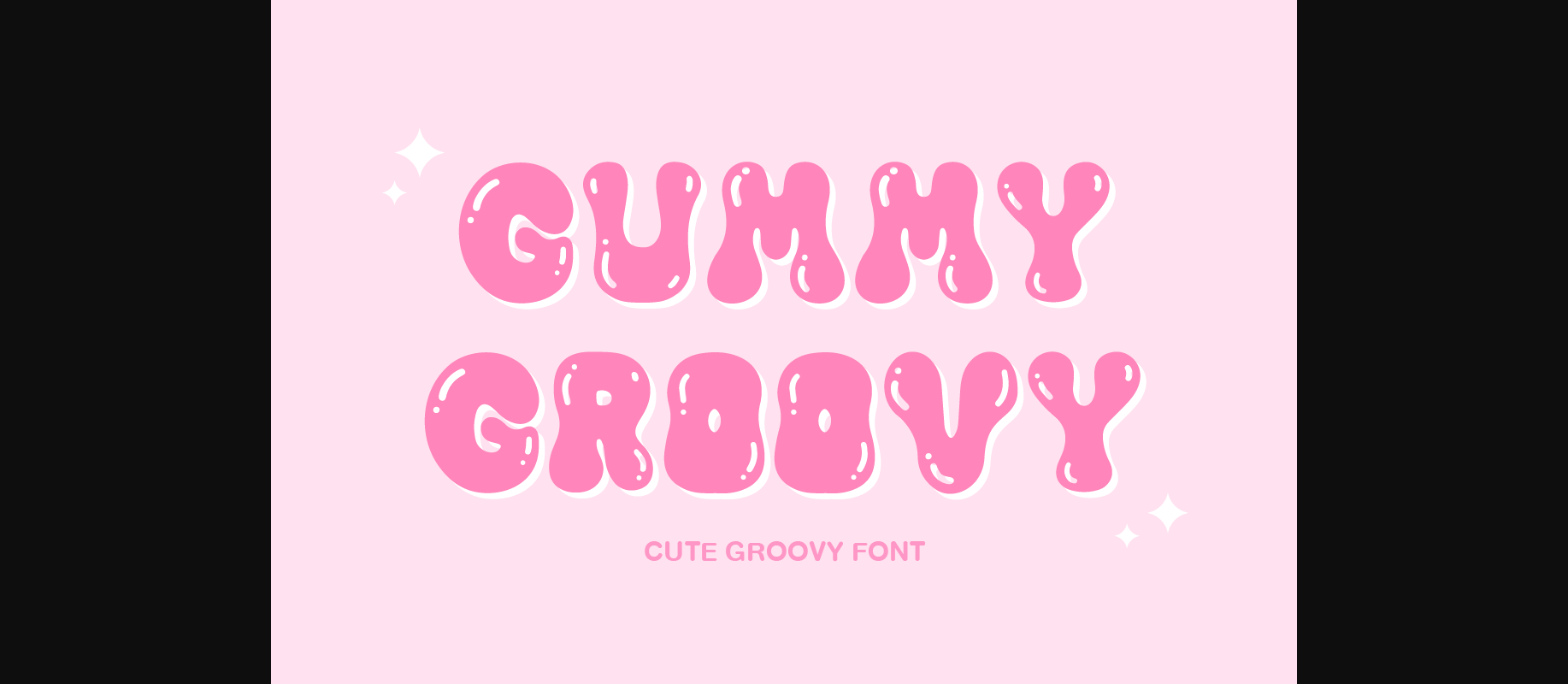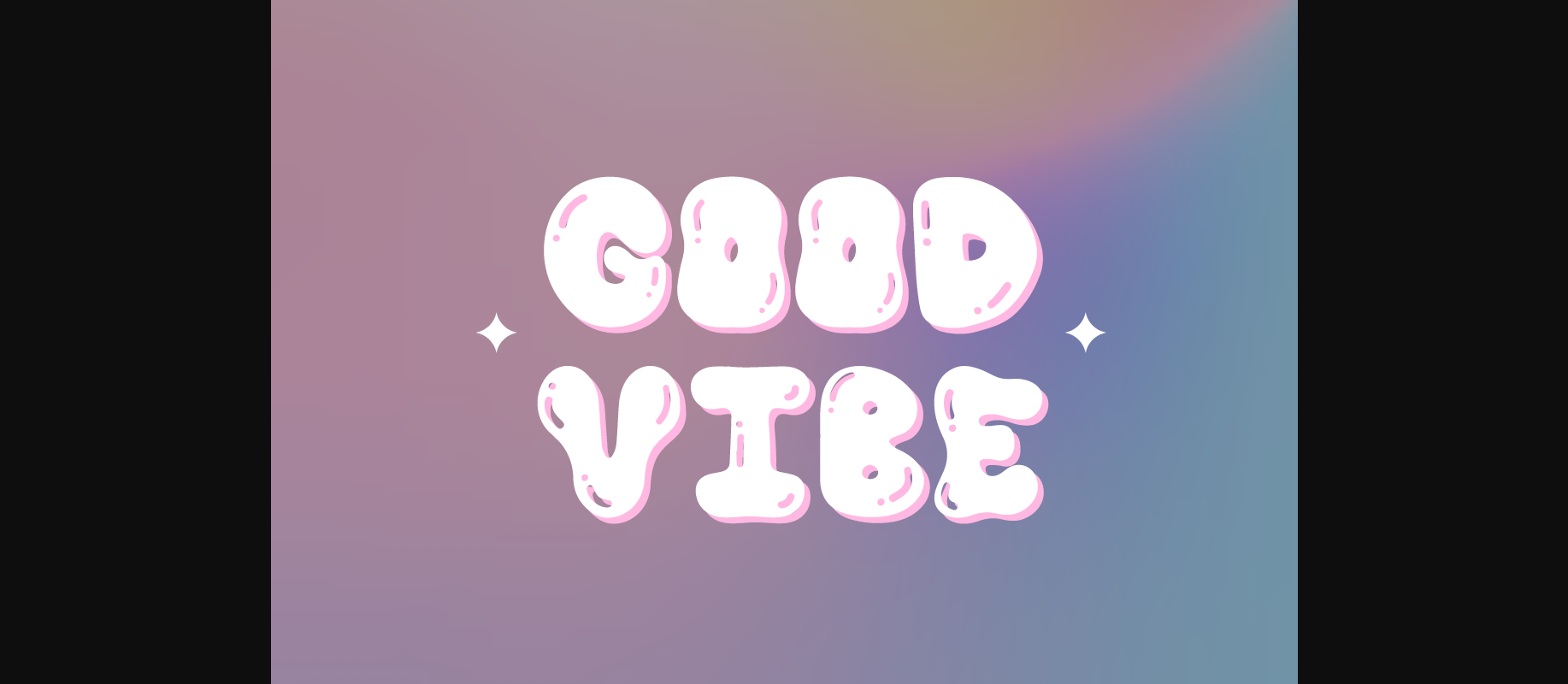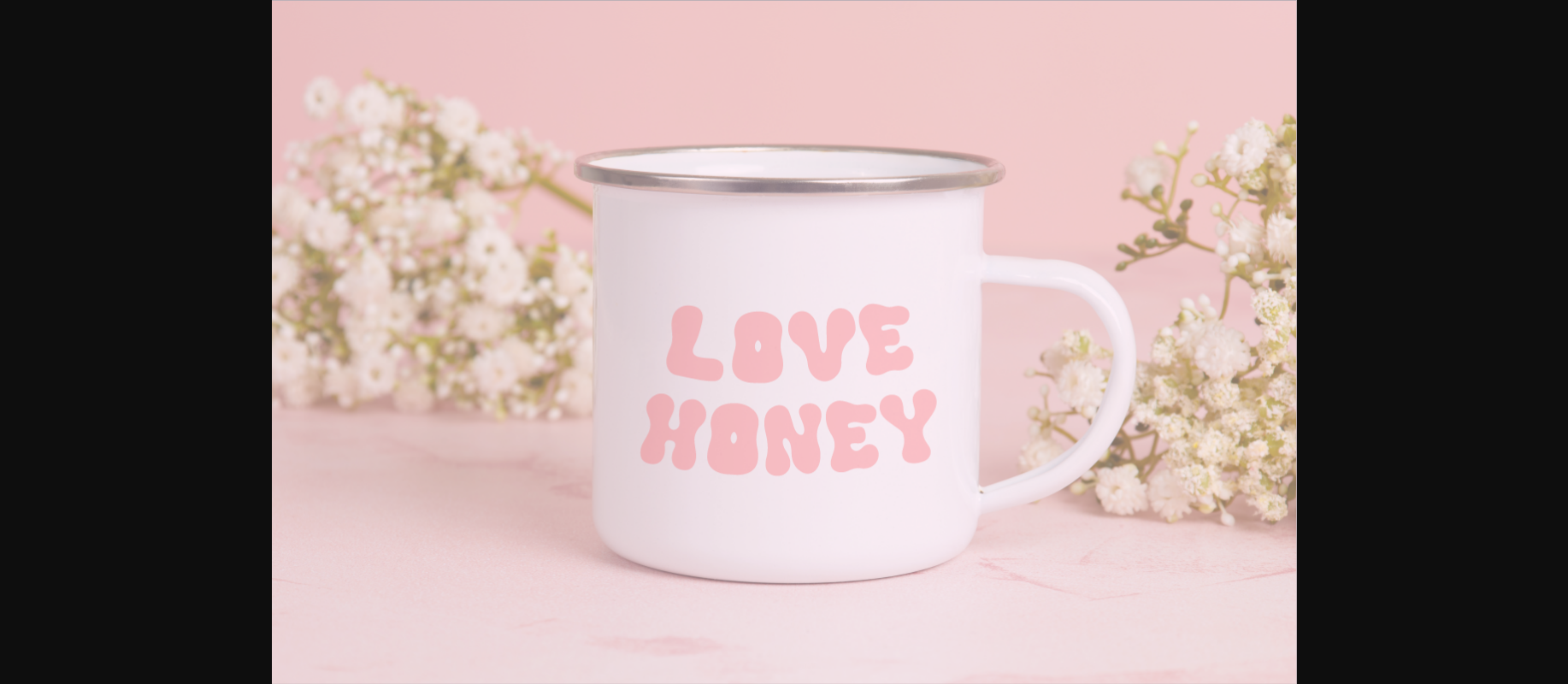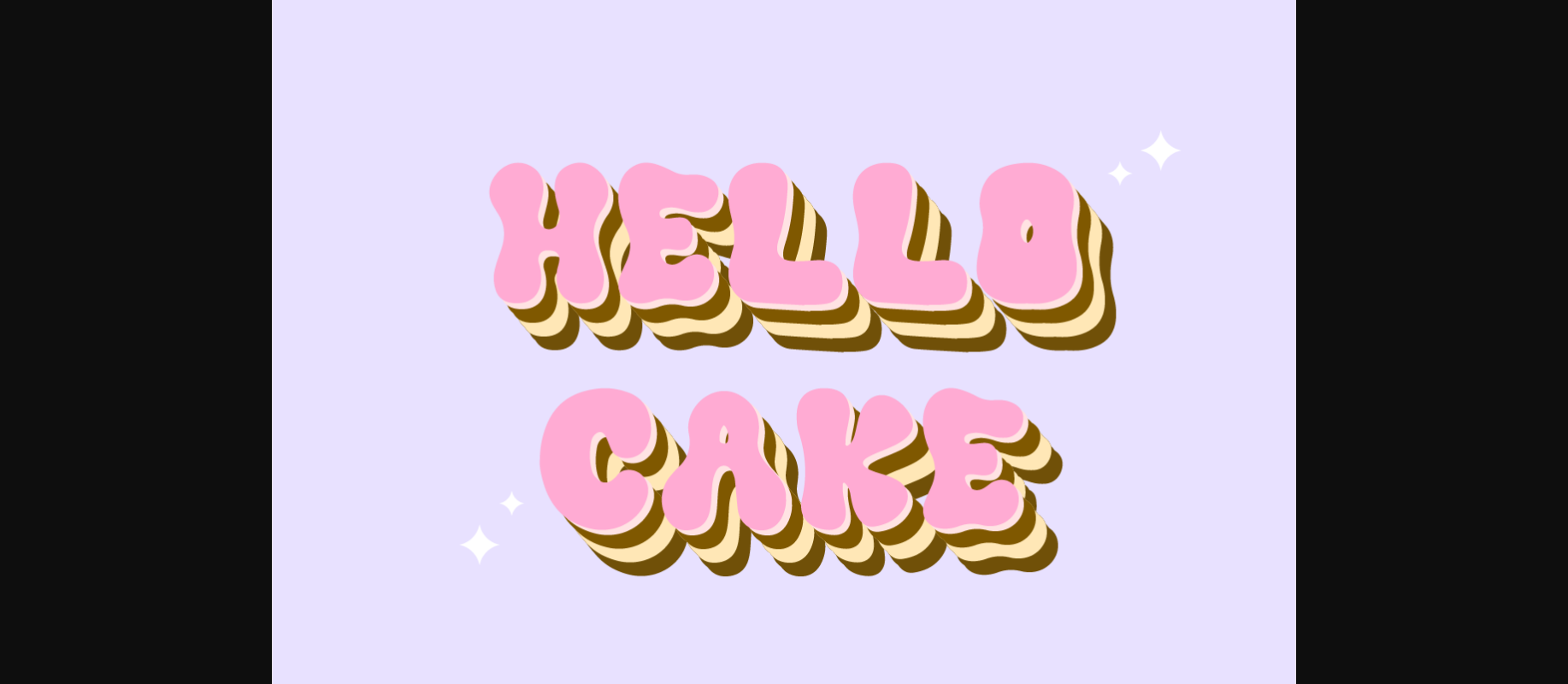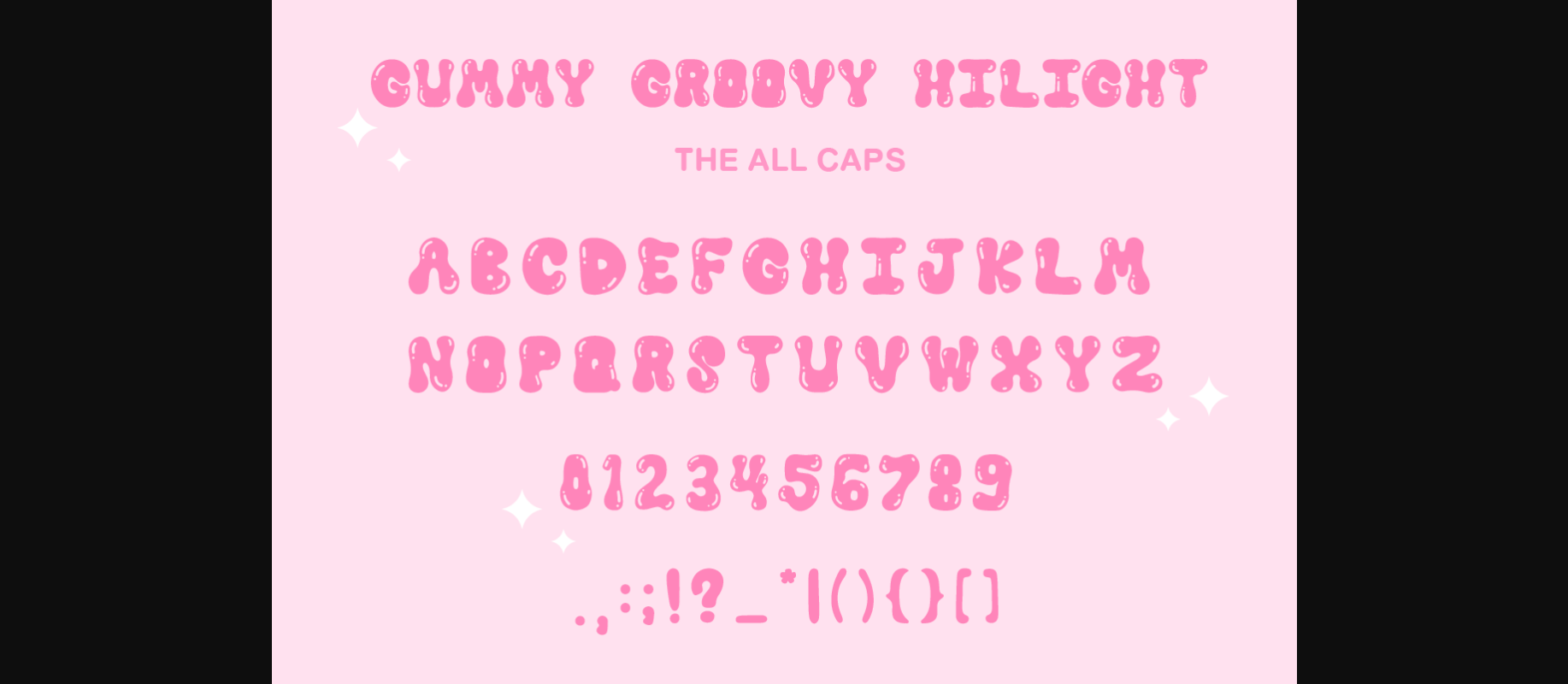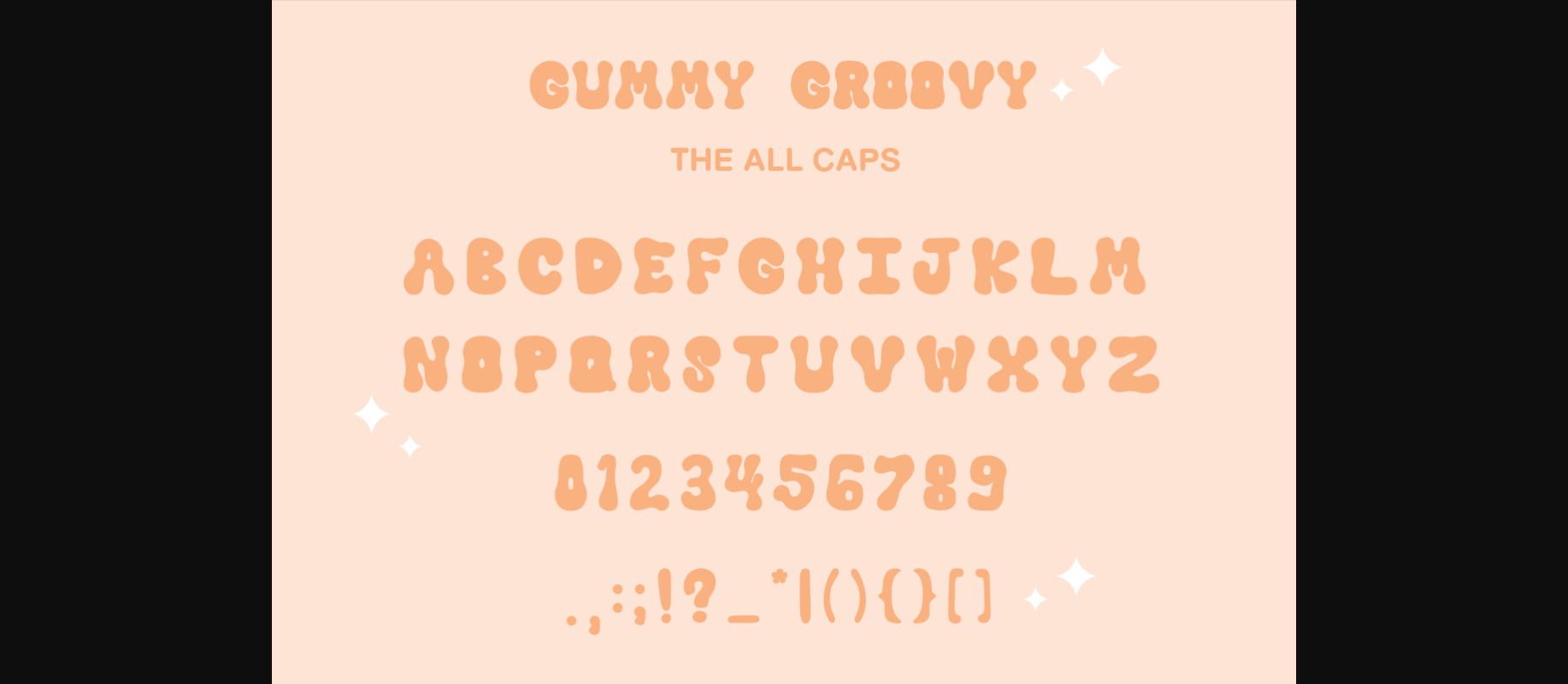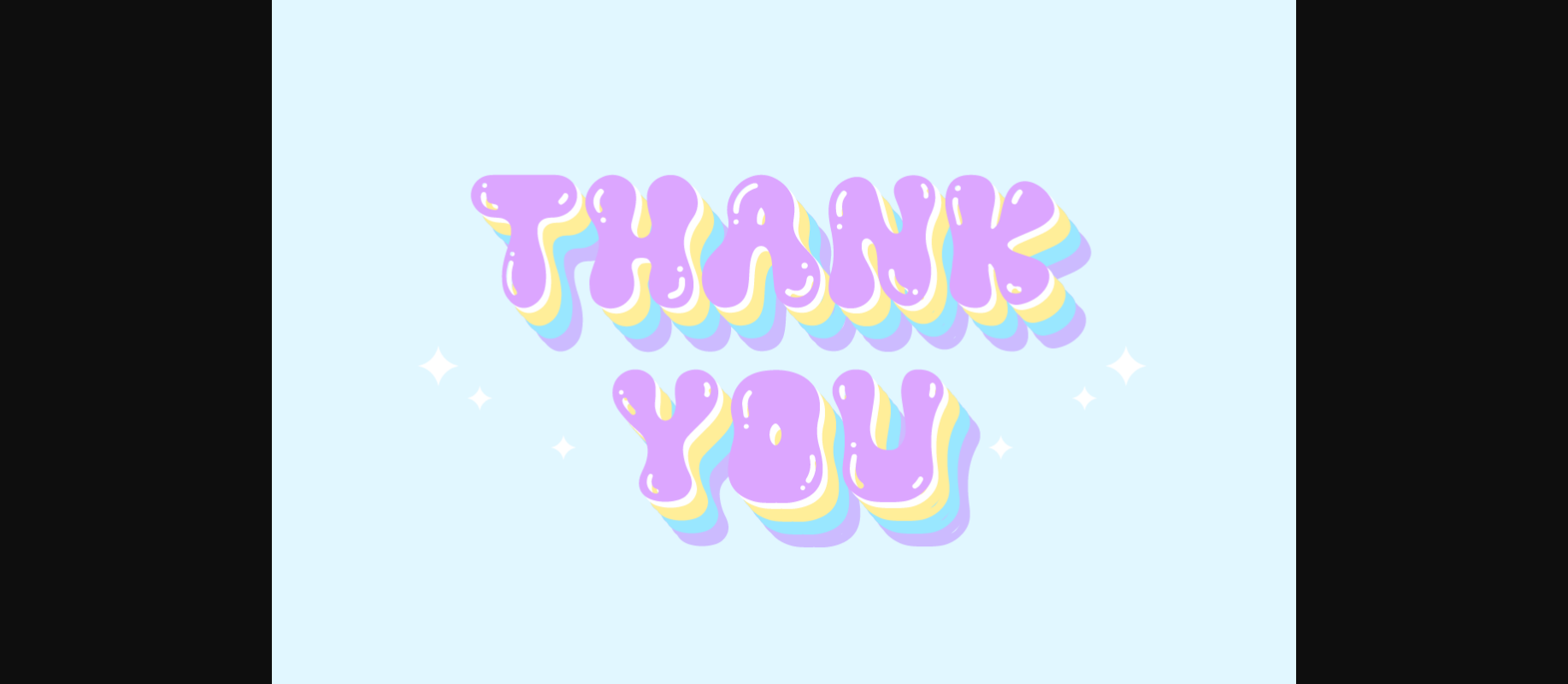
HomeDecorative FontsGummy Groovy Font Decorative Fonts Gummy Groovy Font FacebookXPinterestWhatsApp 1 of 9 ... Gummy Groovy Font Poster 2... Gummy Groovy Font Poster 3... Gummy Groovy Font Poster 4... Gummy Groovy Font Poster 5... Gummy Groovy Font Poster 6... Gummy Groovy Font Poster 7... Gummy Groovy Font Poster 8... Gummy Groovy Font Poster 9... About Gummy Groovy Font Gummy groovy font is a decorative and handwritten font that features a cute retro design with curved lines. The font has a playful, fun, and unique appearance, making it an excellent choice for creating charming designs. DOWNLOAD NOW People also explored Camping Font Kyral Font Rabbit Font Peony Blush Font Sagest Font Affectionately Yours Font Affair Bilappota Font Eastern Hillside Font 308 0 TagsGummy Groovy Font Previous articleUnder Sea FontNext articleVintage Monograms H Font LEAVE A REPLY Cancel reply Comment: Please enter your comment! Name:* Please enter your name here Email:* You have entered an incorrect email address! Please enter your email address here Website: Save my name, email, and website in this browser for the next time I comment. Personal Use Free Nottingsam Personal Use Free Read more about this font Klotee Personal Use Free Read more about this font Shkoder 1989 Personal Use Free Read more about this font Calega Personal Use Free Read more about this font BLOG Using Fonts in Digital Marketing: Tips to Strengthen Your Brand Identity In the realm of digital marketing, every visual element plays a crucial role in shaping a brand's identity, and fonts are no exception. The... Free Fonts Risk: Why Free Fonts Can Be Dangerous for Designers How to Cut Any Font on Cricut: Convert a Font to SVG (Free) Top 7 Google Fonts Alternatives for Faster and Privacy-Friendly Web Design (2025)